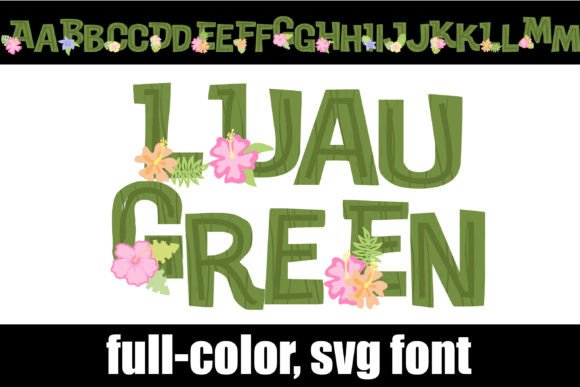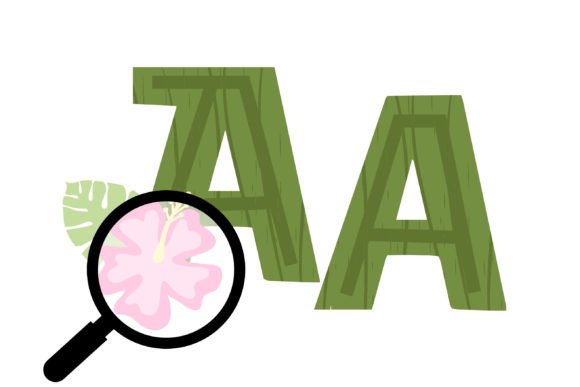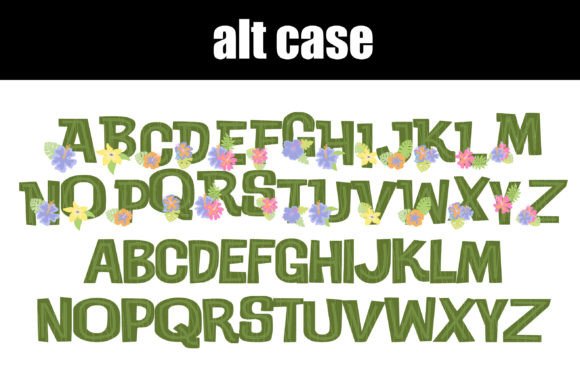
Luau Green Font
About the Luau Green Font
Introducing the Luau Green Font, a beautifully crafted typeface designed to elevate your creative projects. This full-color font features a Hawaiian-style font with tropical flowers. There is an alt case w/ additional colors you can access through your system or Silhouette’s glyph map. This font works best for titles, displays, posters and more. Please note color fonts will show as black in non compatible programs. This font type is compatible with Silhouette Studio.
Here are some of the benefits of using full-color SVG fonts:
They are versatile and can be used for a variety of projects, from logos and branding to web design and print.
They are scalable, so you can use them for any size project.
They are high quality and will not lose their resolution when scaled.
If you are looking for a versatile, high-quality font that can be used for a variety of projects, then a full-color SVG font is the perfect choice for you.